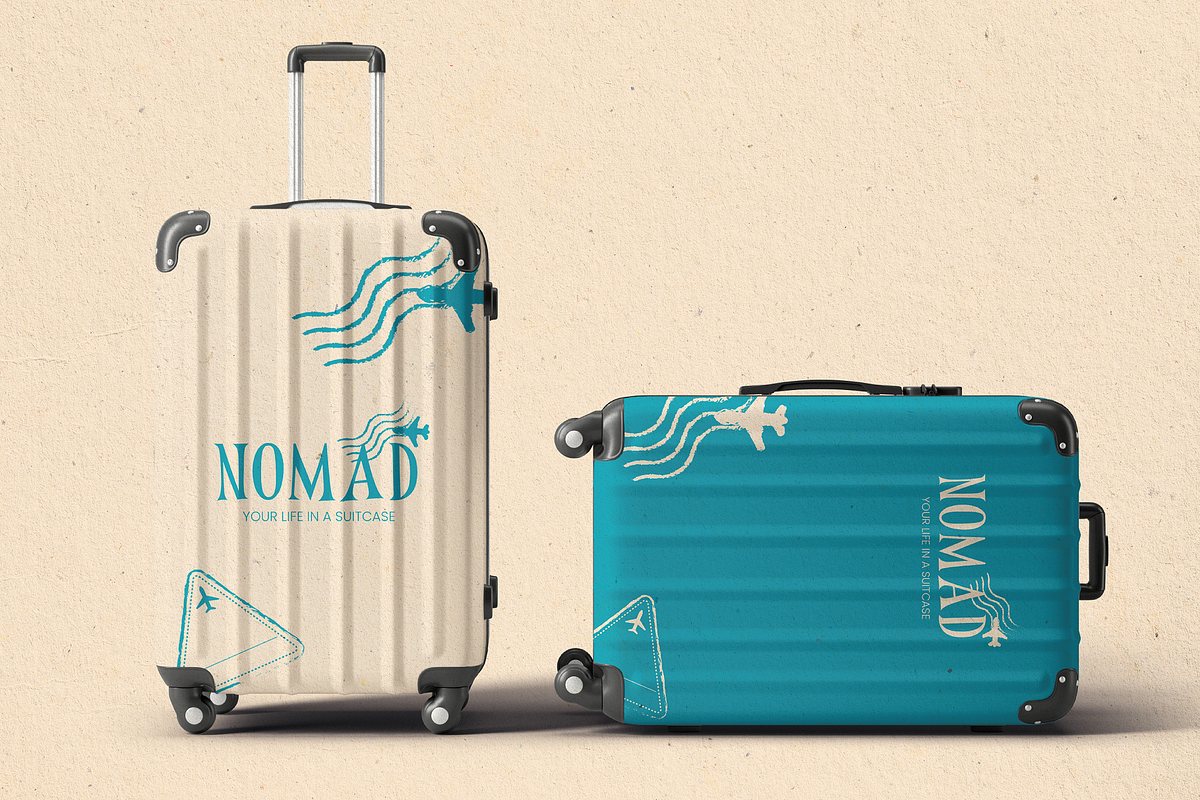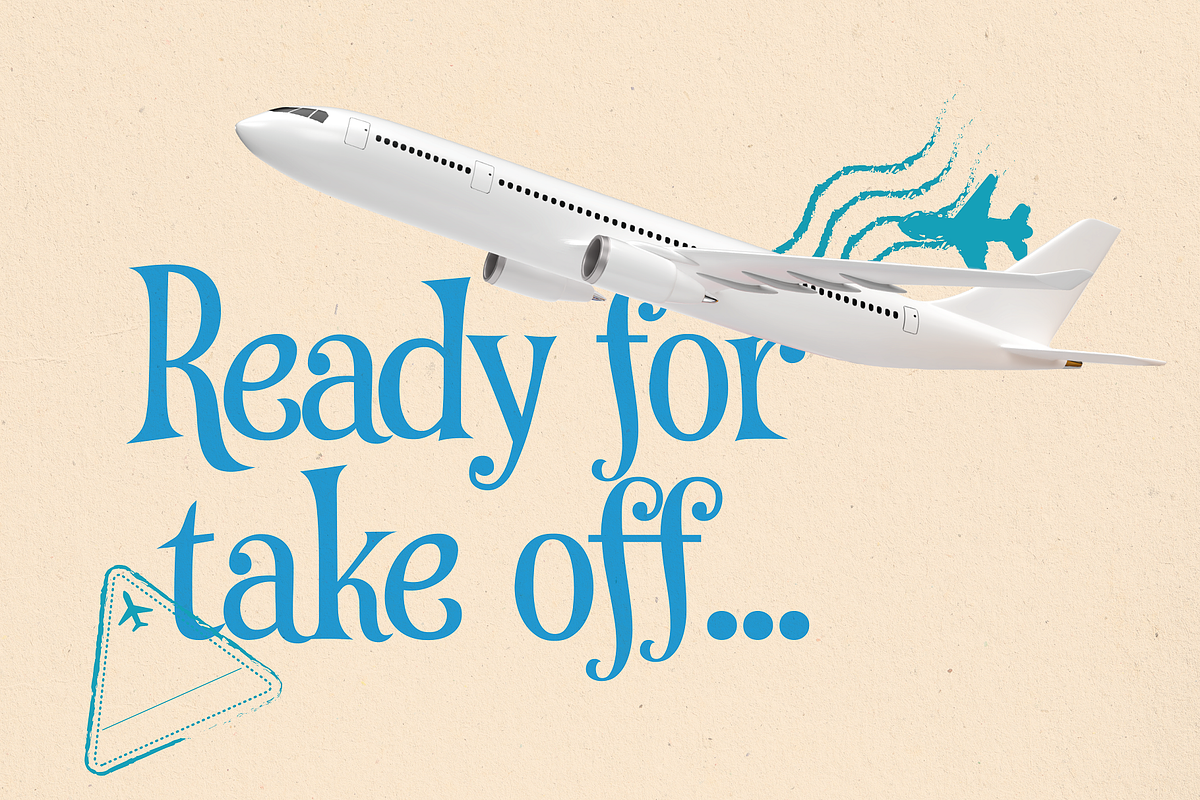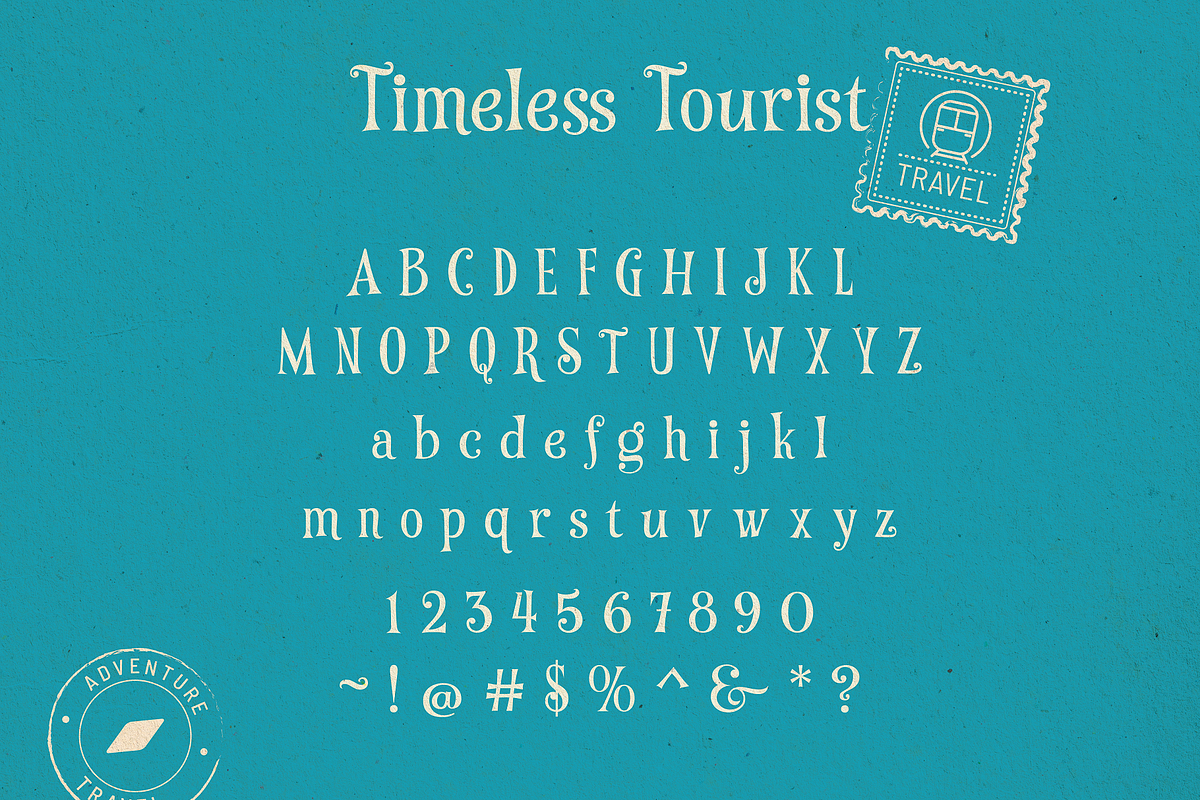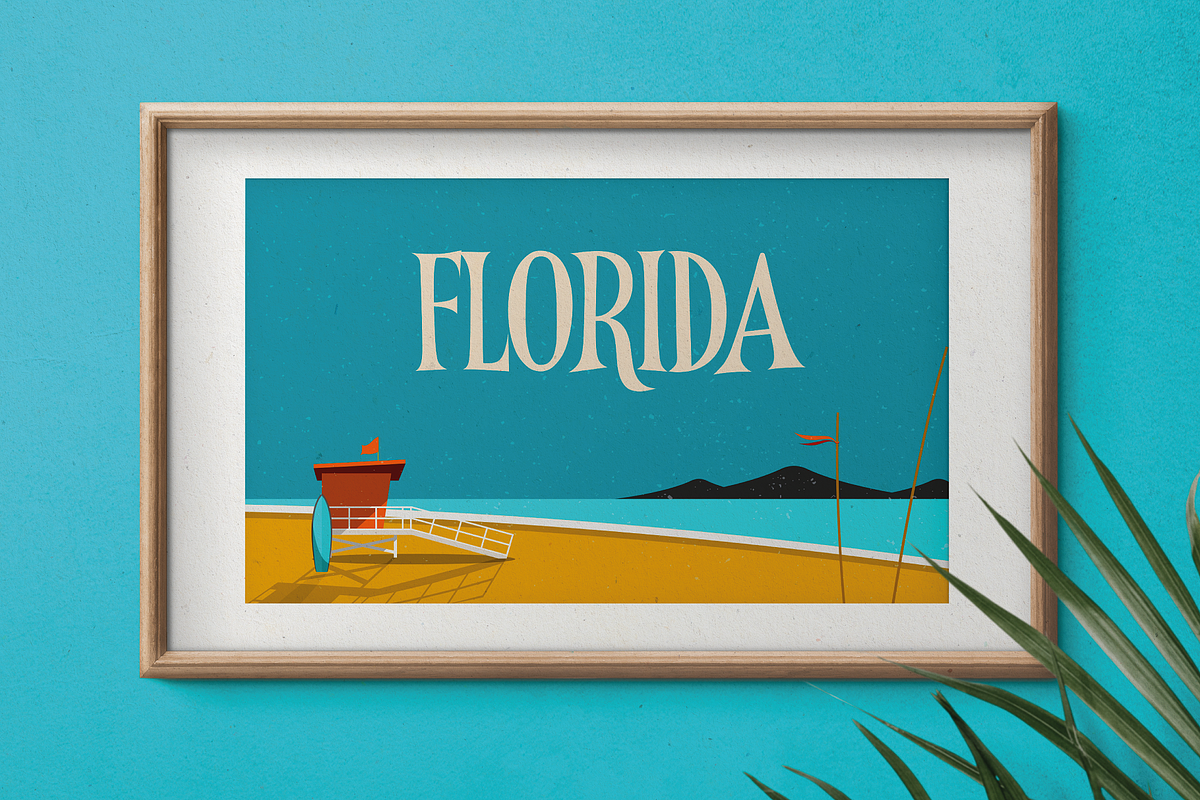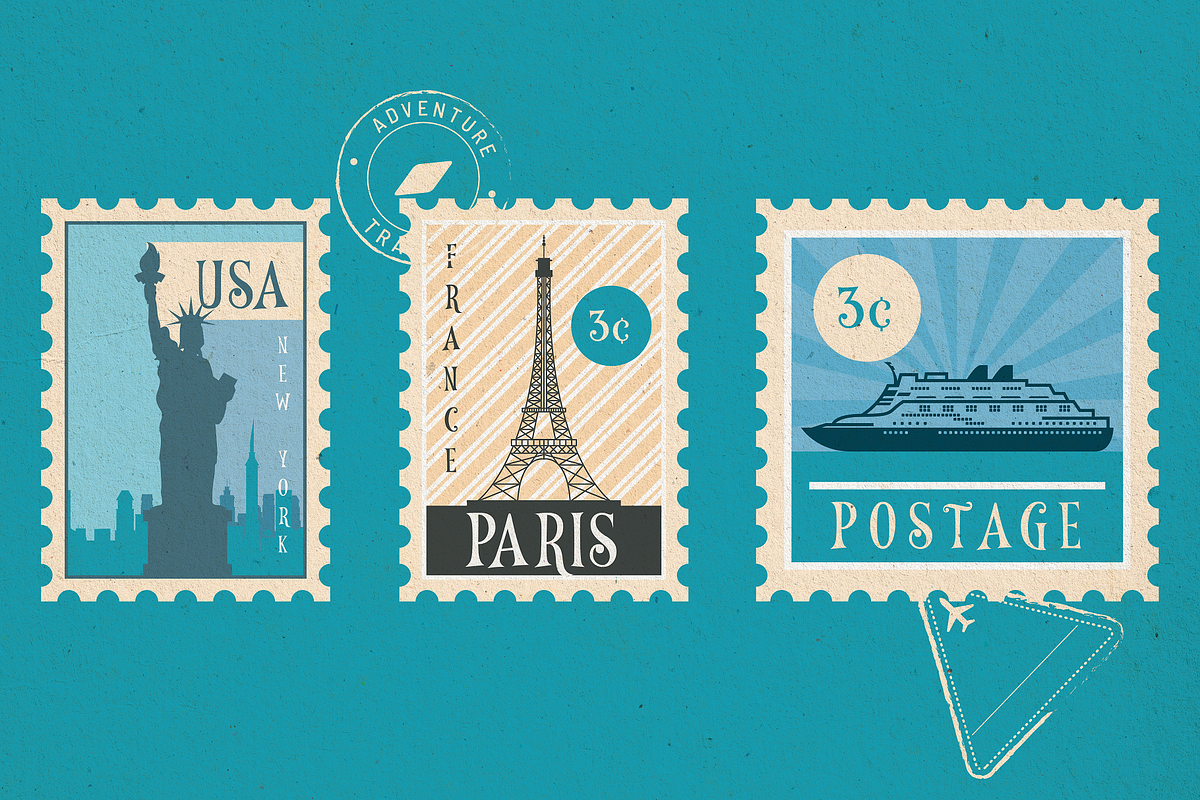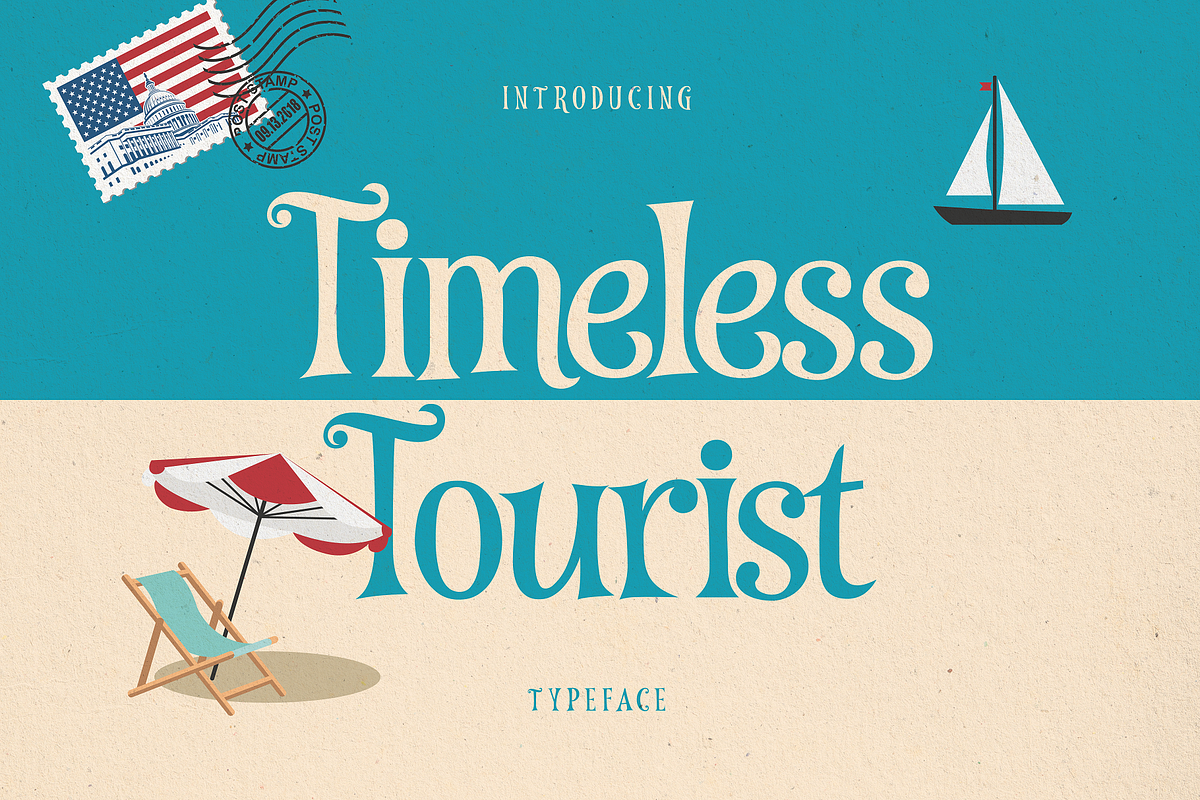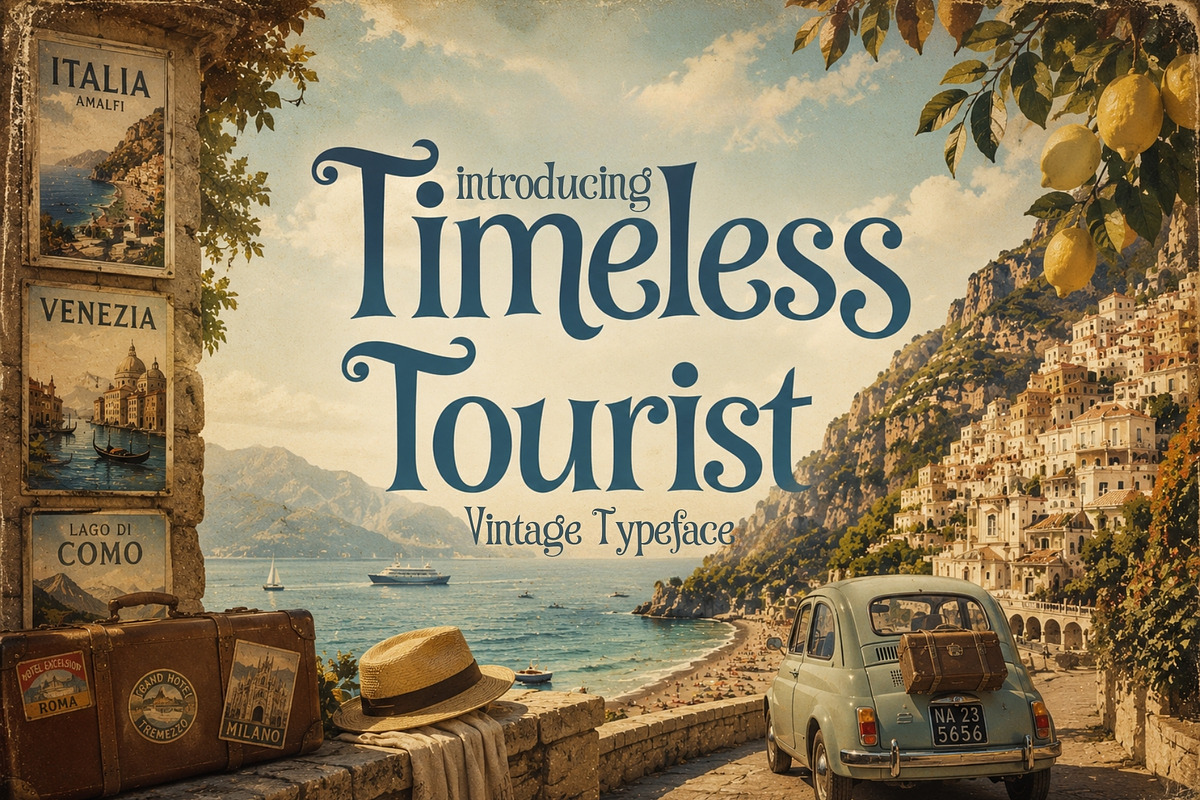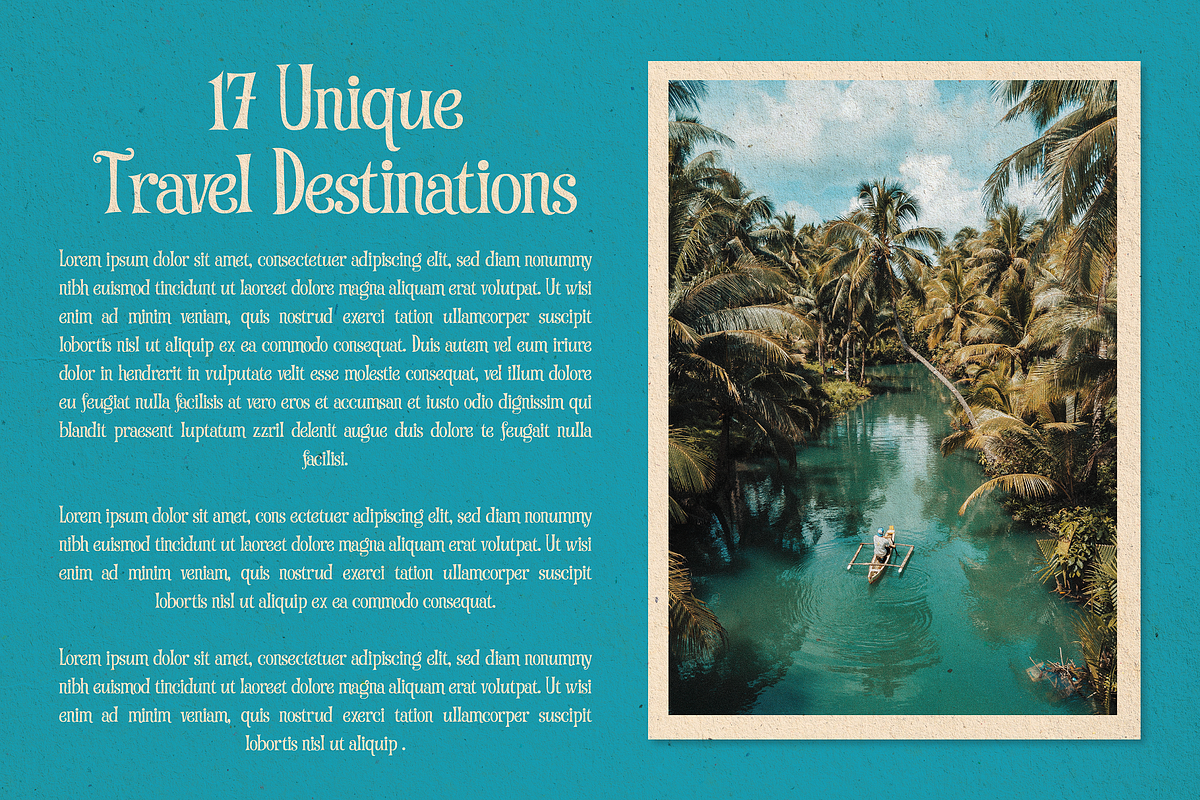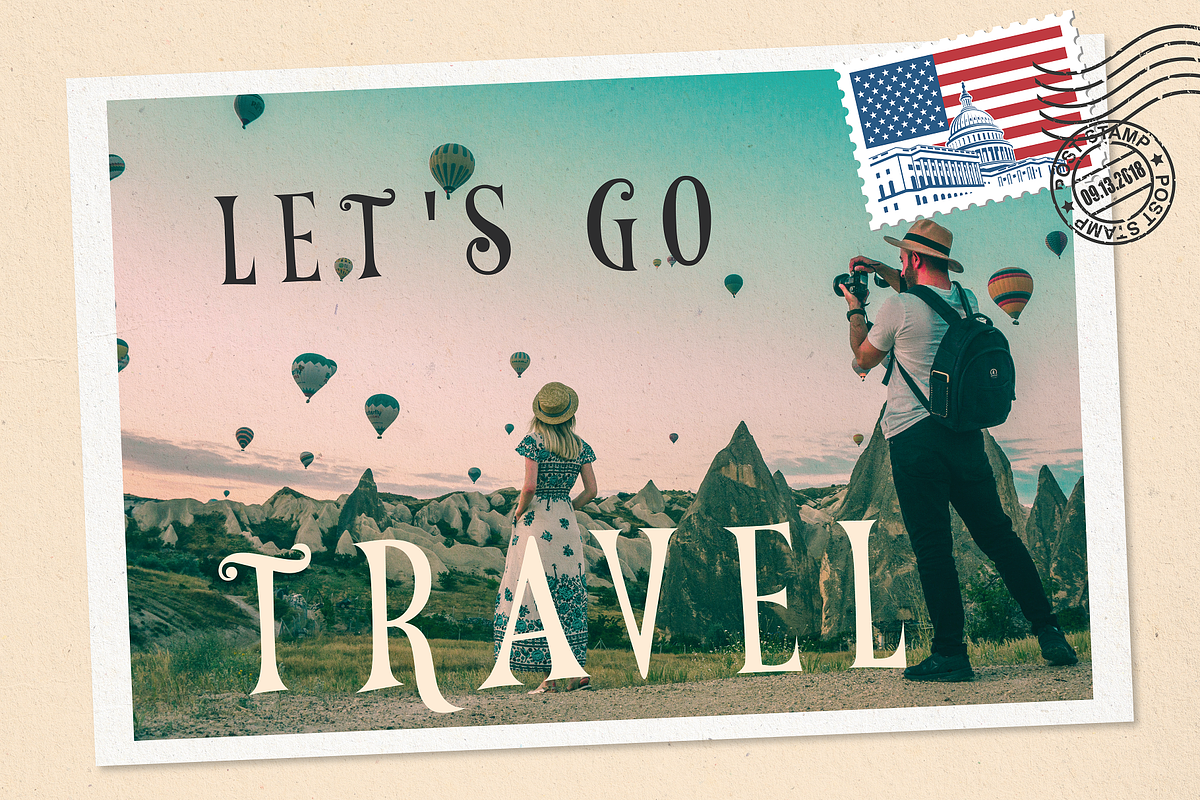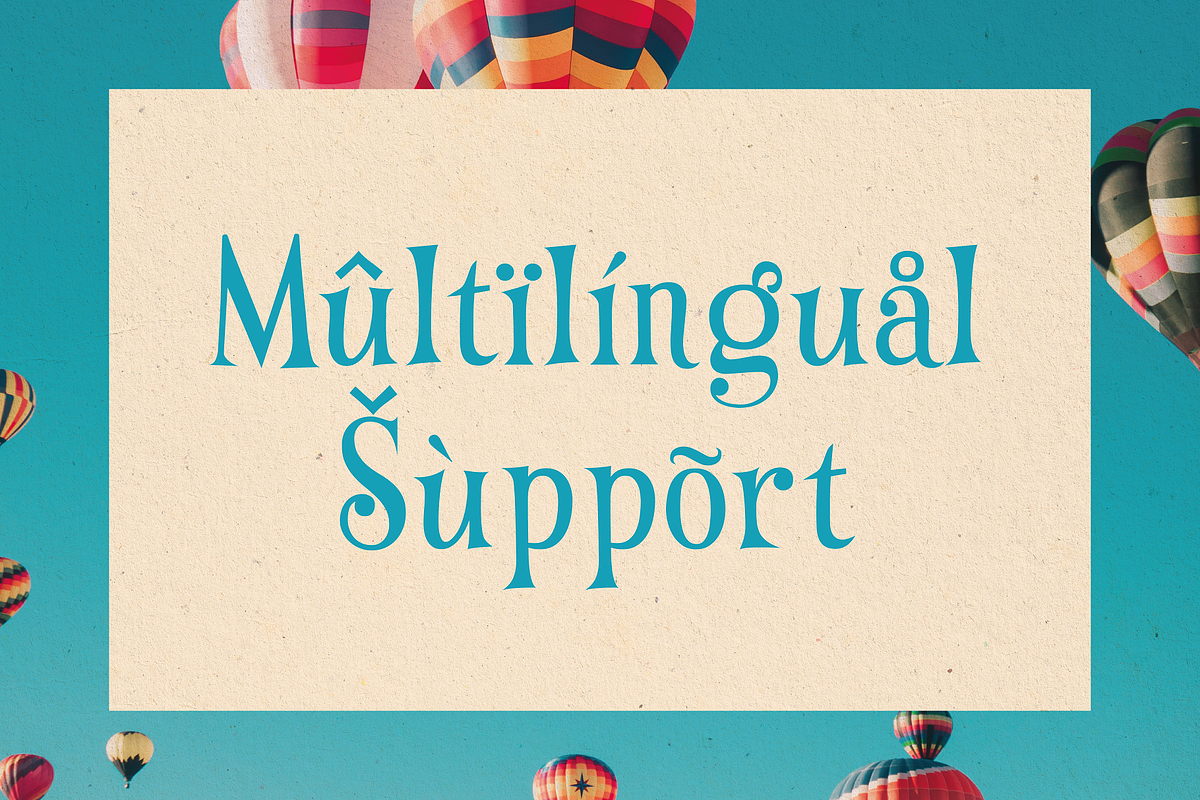
Timeless Tourist - Vintage Ad Type
Step back in time and embark on a nostalgic journey with Timeless Tourist, the font that captures the essence of vintage travel. Inspired by the golden era of exploration, this font embodies the allure of adventure and the elegance of yesteryear.
Its graceful curves and intricate details transport you to a bygone era, where passports were stamped and destinations were discovered with a sense of wonder. Whether you're designing travel posters, postcards, or travel-themed branding materials, Timeless Tourist adds a touch of old-world charm and wanderlust to your creations.
Let the allure of this vintage travel font ignite your imagination and invite your audience to join you on a journey to the past. Unleash the spirit of exploration with Timeless Tourist and create designs that stand the test of time. Bon voyage!